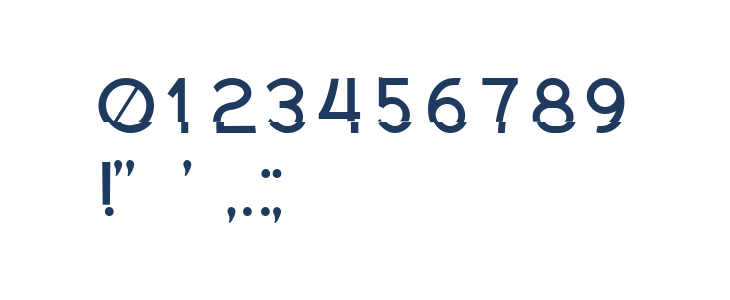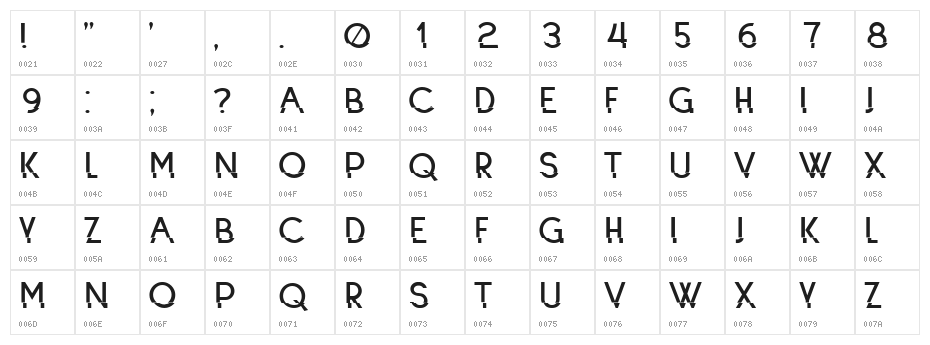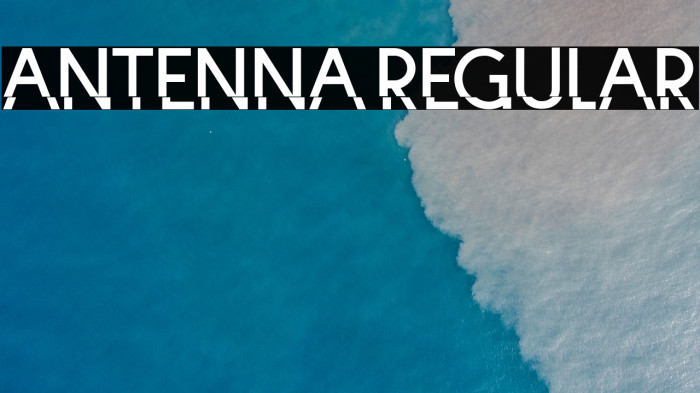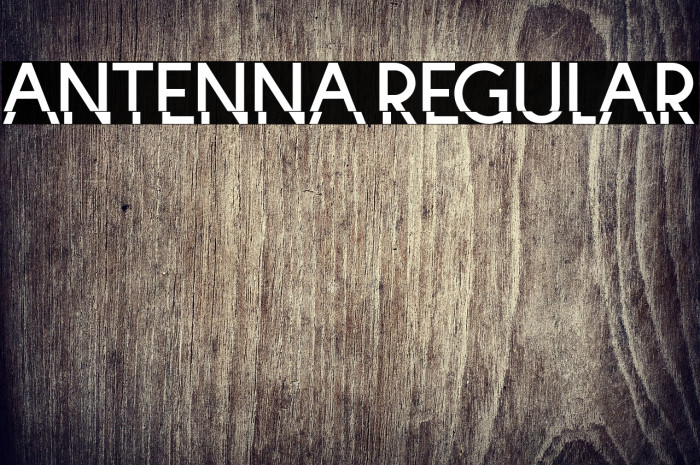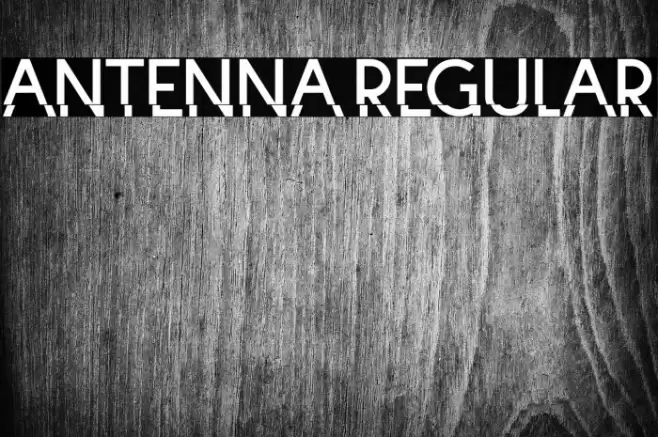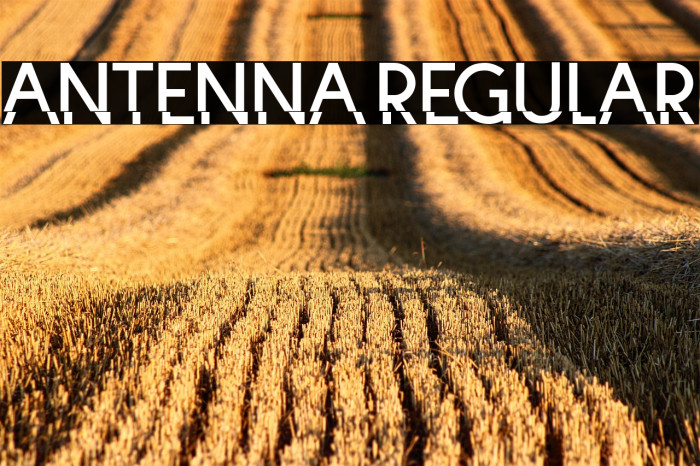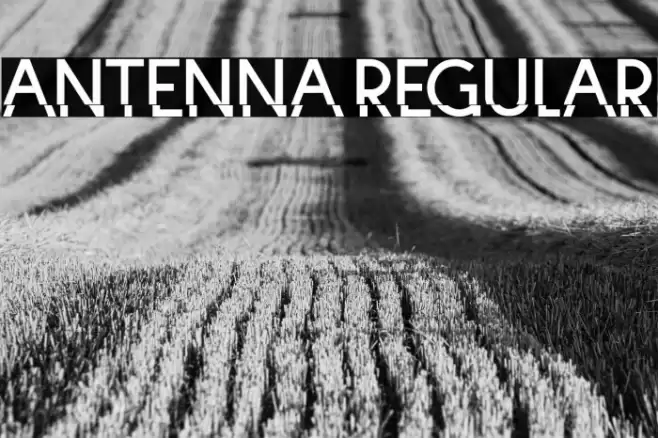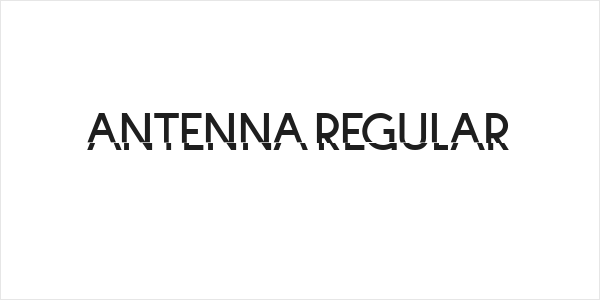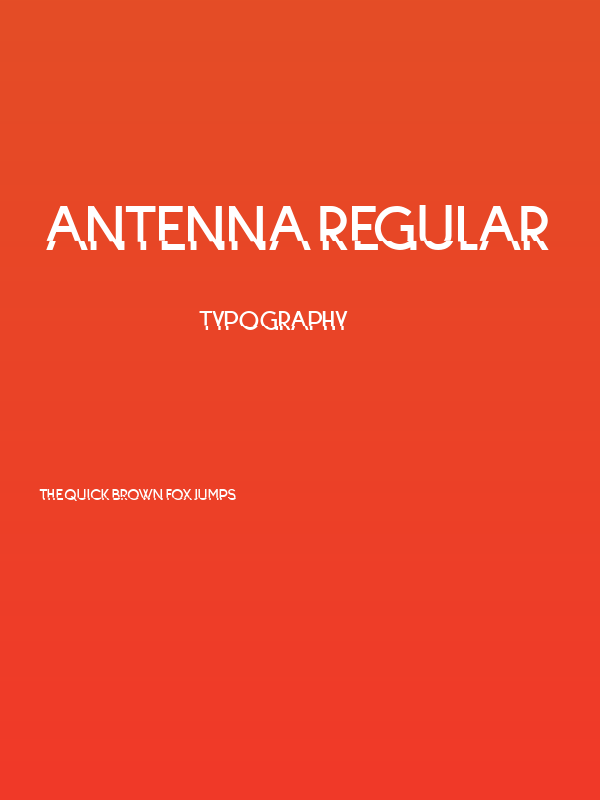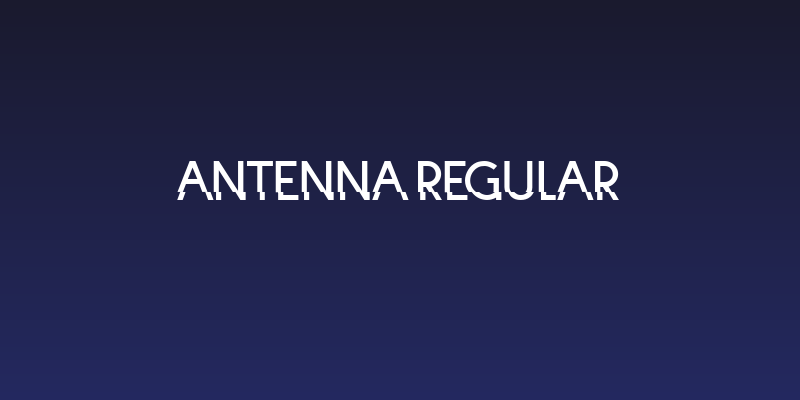
Antenna Regular Font
Antenna Regular Description
This font features a clean, modern sans-serif style with geometric influences. The characters are well-proportioned, offering a balanced and harmonious appearance. The uppercase letters are bold and assertive, while the lowercase letters maintain a consistent weight, providing a uniform look. The numbers are clear and easy to read, making them suitable for various applications. Special characters are designed with the same attention to detail, ensuring they integrate seamlessly with the rest of the typeface. The overall design is versatile, making it suitable for both digital and print media.